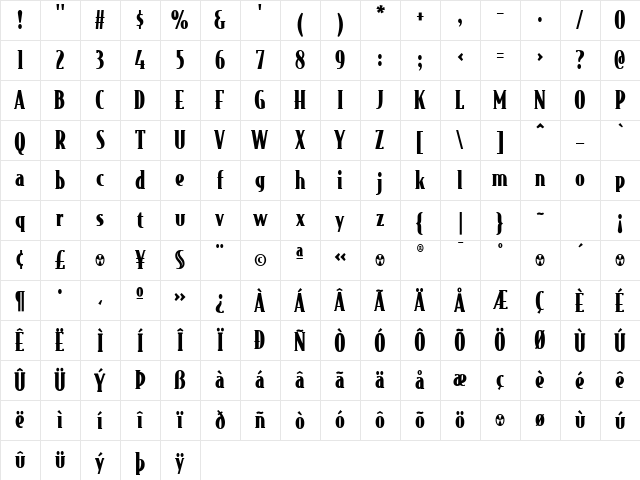
BodegaSerif Regular
Foundry: Copr. Greg Thompson. Bodega is a Trademark of Greg Thompson. Produced by The Font Bureau, Inc
Design Context for BodegaSerif
BodegaSerif carries the refined structure of traditional serif typography, with bracketed terminals and considered proportions that communicate credibility and craft.
Who designed the BodegaSerif Regular font?
This font was published by Copr. Greg Thompson. Bodega is a Trademark of Greg Thompson. Produced by The Font Bureau, Inc. Check the technical specs section for copyright and designer details.